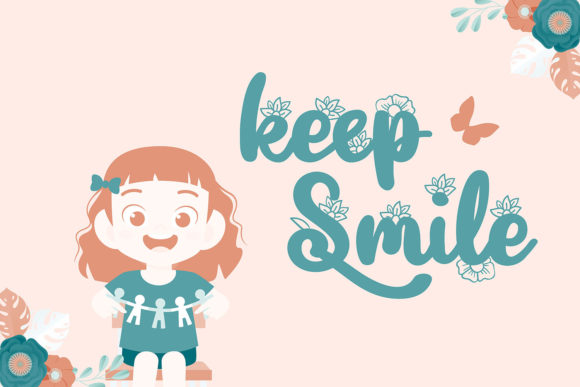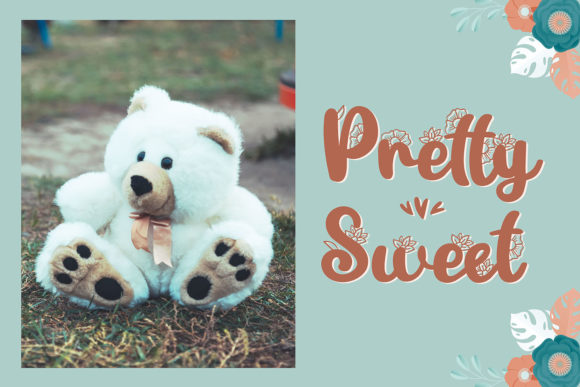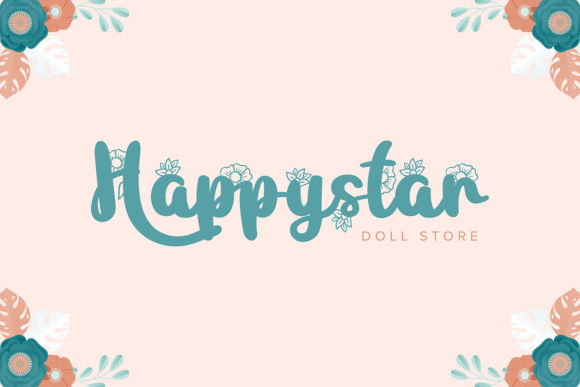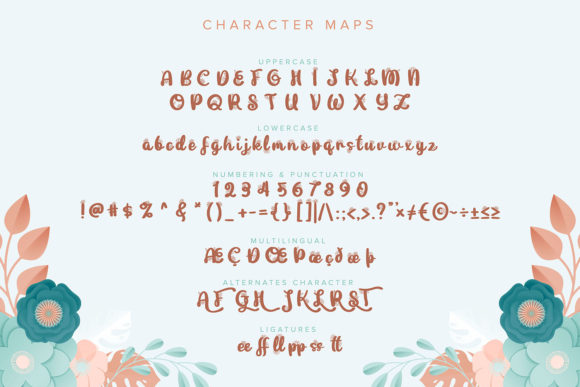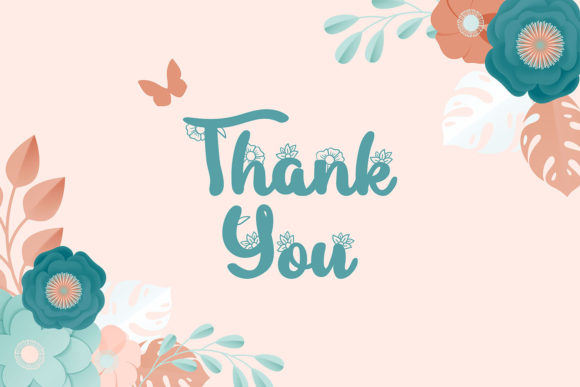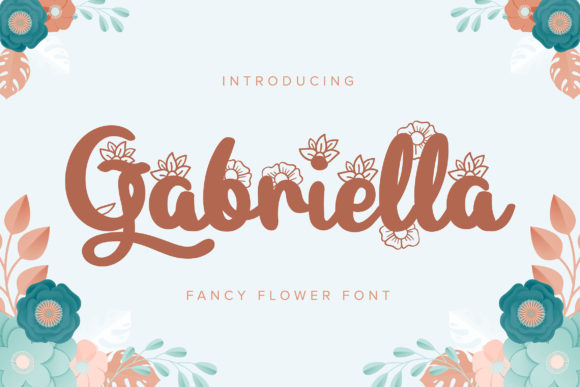
Discover the Elegance of Gabriella Font: A Handwritten Marvel
Are you on the hunt for a font that embodies creativity, versatility, and a touch of personal flair? Look no further than the Gabriella font, a stunning handwritten typeface that is sure to bring your designs to life. In this article, we’ll dive into the world of Gabriella, exploring its unique characteristics, uses, and benefits for designers and crafters alike.
The Essence of Gabriella Font
Gabriella is a flowing and distinct handwritten font, crafted to inspire your most creative projects. Its incredibly relaxed and versatile nature makes it an ideal choice for a wide range of applications, from digital designs to print materials. Whether you’re working on a logo, branding, packaging, or social media graphics, Gabriella is the perfect fit to add a personal touch to your work.
What Makes Gabriella Stand Out?
So, what sets Gabriella apart from other fonts? Here are a few key features that make this font a standout:
- Unique Handwritten Style: Gabriella boasts a beautiful, handwritten aesthetic that adds a touch of warmth and personality to any design.
- Versatility: This font is incredibly versatile, making it suitable for a wide range of projects, from formal to informal, and from digital to print.
- Easy to Read: Despite its creative and artistic nature, Gabriella remains easy to read, ensuring that your message is conveyed clearly and effectively.
Gabriella is more than just a font – it’s a creative tool that can help bring your ideas to life. Its flowing and distinct style makes it perfect for:
- Logos and Branding: Create a unique and memorable brand identity with Gabriella’s elegant and sophisticated style.
- Social Media Graphics: Add a personal touch to your social media posts, stories, and ads with Gabriella’s creative and eye-catching aesthetic.
- Packaging Design: Make your products stand out on store shelves with Gabriella’s beautiful and distinctive font.
- Invitations and Stationery: Create stunning invitations, cards, and stationery with Gabriella’s elegant and refined style.
Tips for Using Gabriella Font
To get the most out of Gabriella, here are a few tips to keep in mind:
- Experiment with Sizes and Colors: Play around with different sizes and colors to find the perfect combination for your design.
- Pair with Other Fonts: Combine Gabriella with other fonts to create a unique and visually appealing typography.
- Use for Headings and Titles: Gabriella is perfect for headings and titles, adding a touch of elegance and sophistication to your design.
In conclusion, Gabriella font is a beautiful and versatile handwritten typeface that is perfect for designers and crafters looking to add a personal touch to their projects. With its unique style, ease of use, and versatility, Gabriella is sure to become a go-to font in your design arsenal. So why wait? Add Gabriella to your favorite projects and watch them come alive!